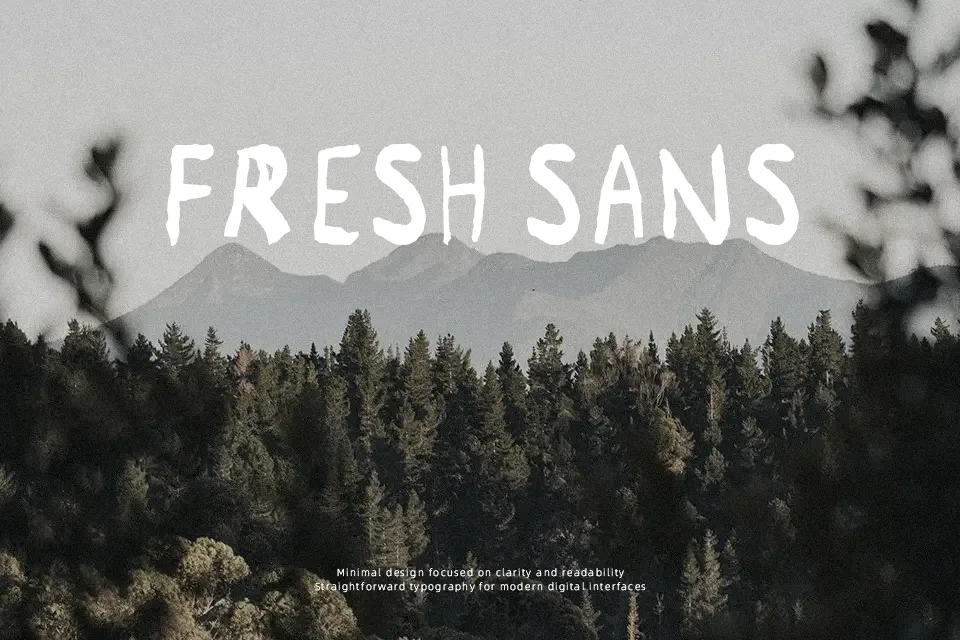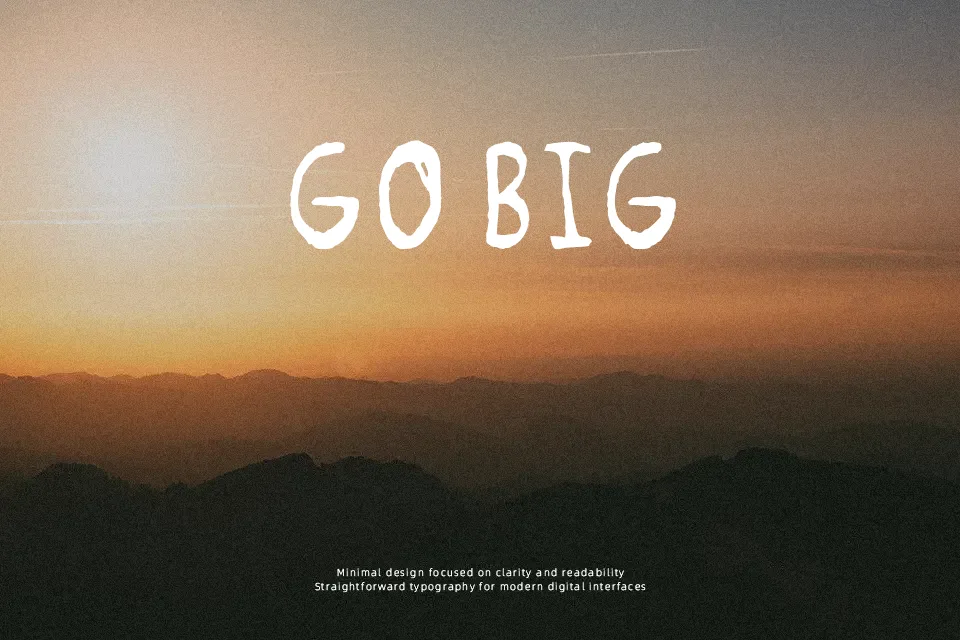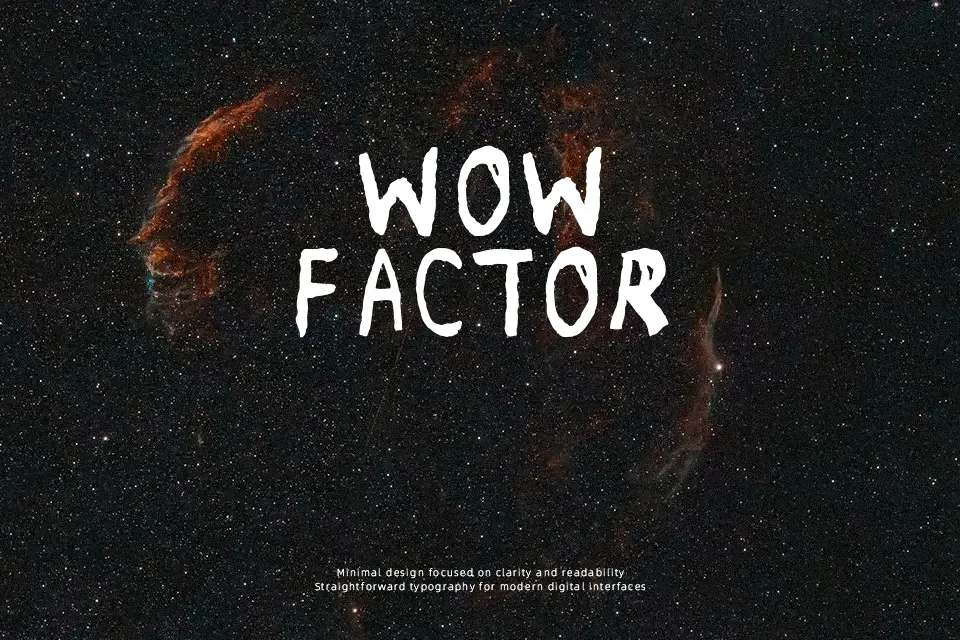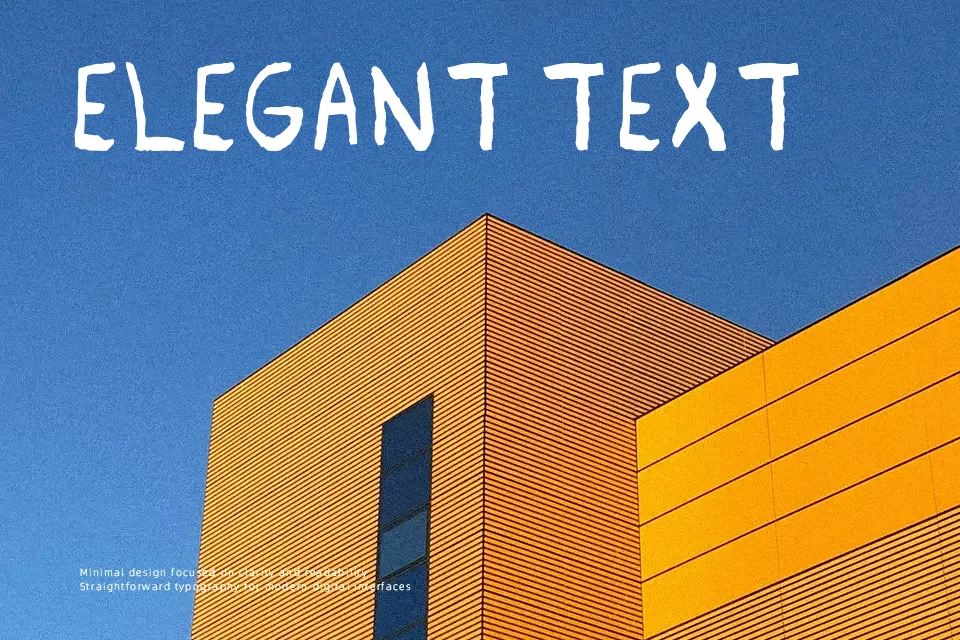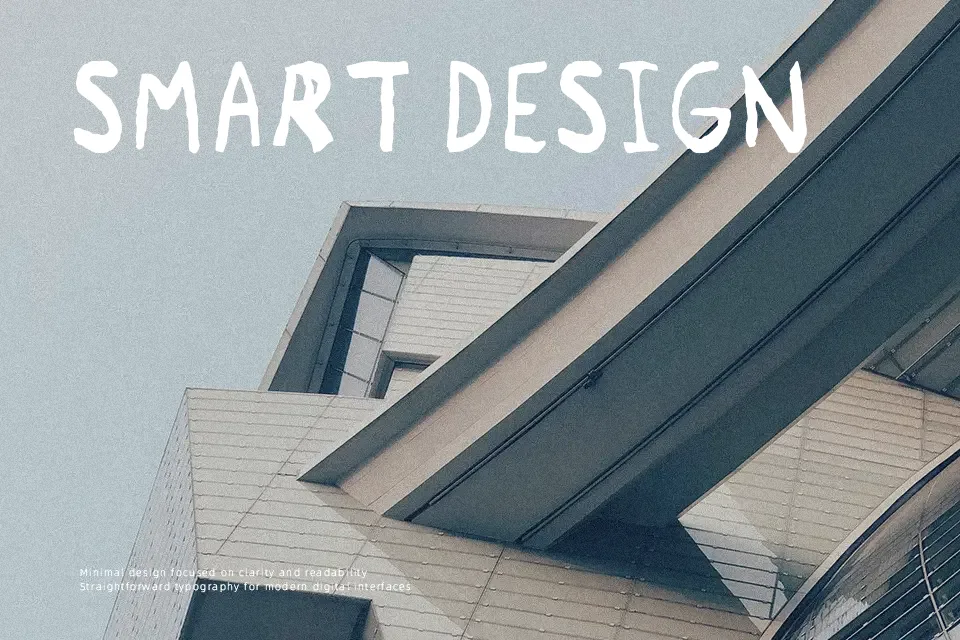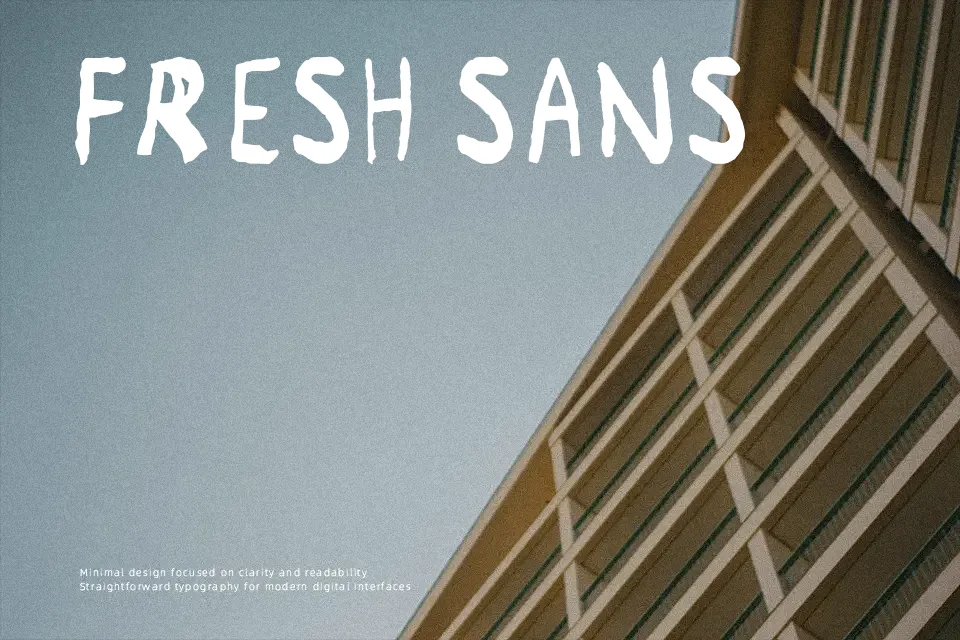
Remnant Font
Remnant Font delivers a bold, hand-drawn aesthetic characterized by an uneven baseline and messy, erratic strokes. The thick, expressive letterforms create a distinctly eerie and distressed appearance across the entire character set. Its irregular spacing and rough terminal shapes add to the organic, unsettling rhythm of the typeface. These dense, heavily textured forms command attention in large display formats, ensuring strong visibility in short headlines. However, the erratic structure significantly reduces continuous reading comfort, making the typography less suitable for long paragraphs. The heavy strokes perform best when applied to horror-themed branding, grungy event posters, and dark editorial layouts where a raw, unpolished look is needed.
horror movie posters
Halloween event branding
grungy apparel graphics
dark editorial headlines
Perfect for halloween, headline, and packaging, with a creative and decorative style.